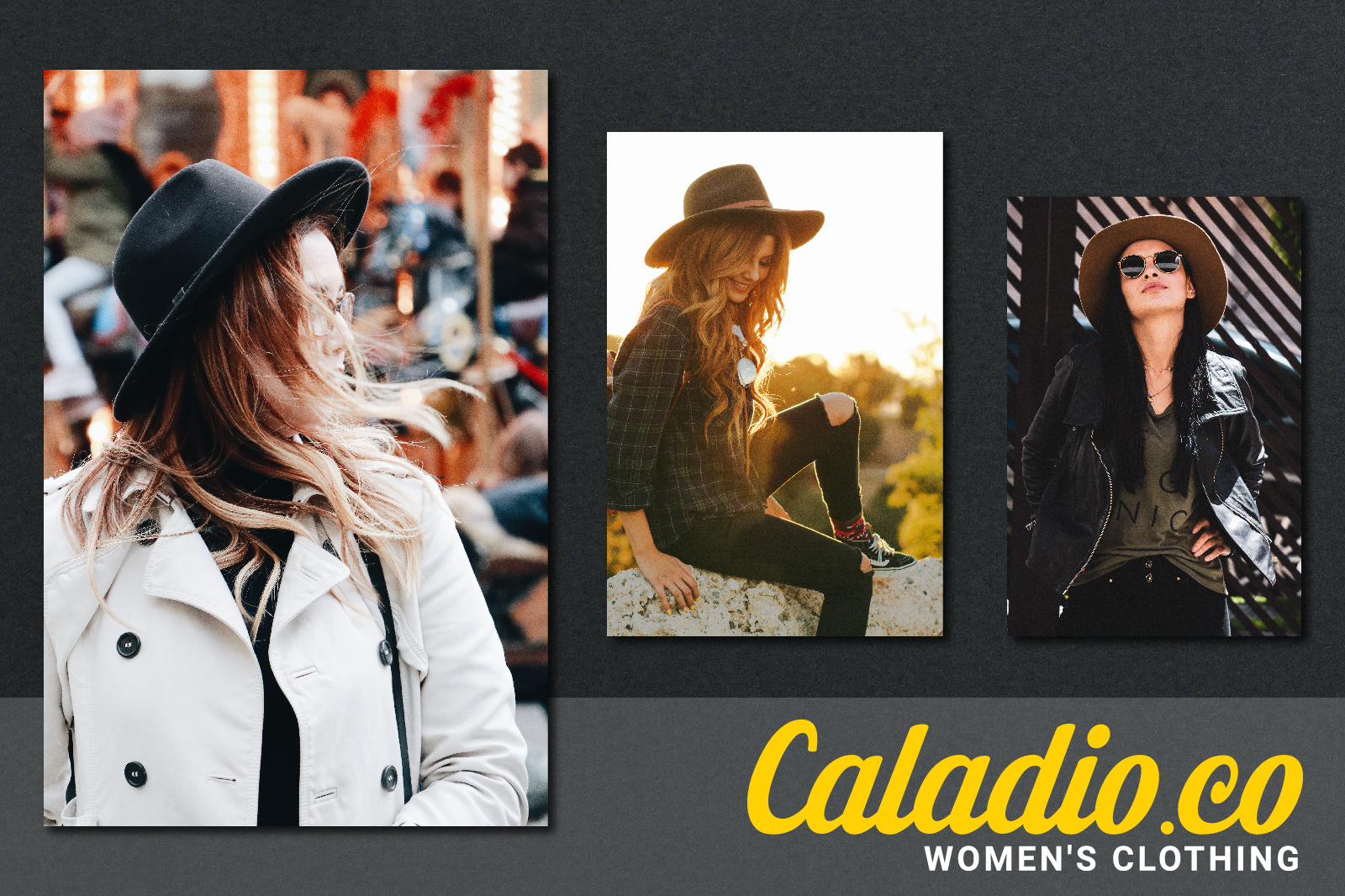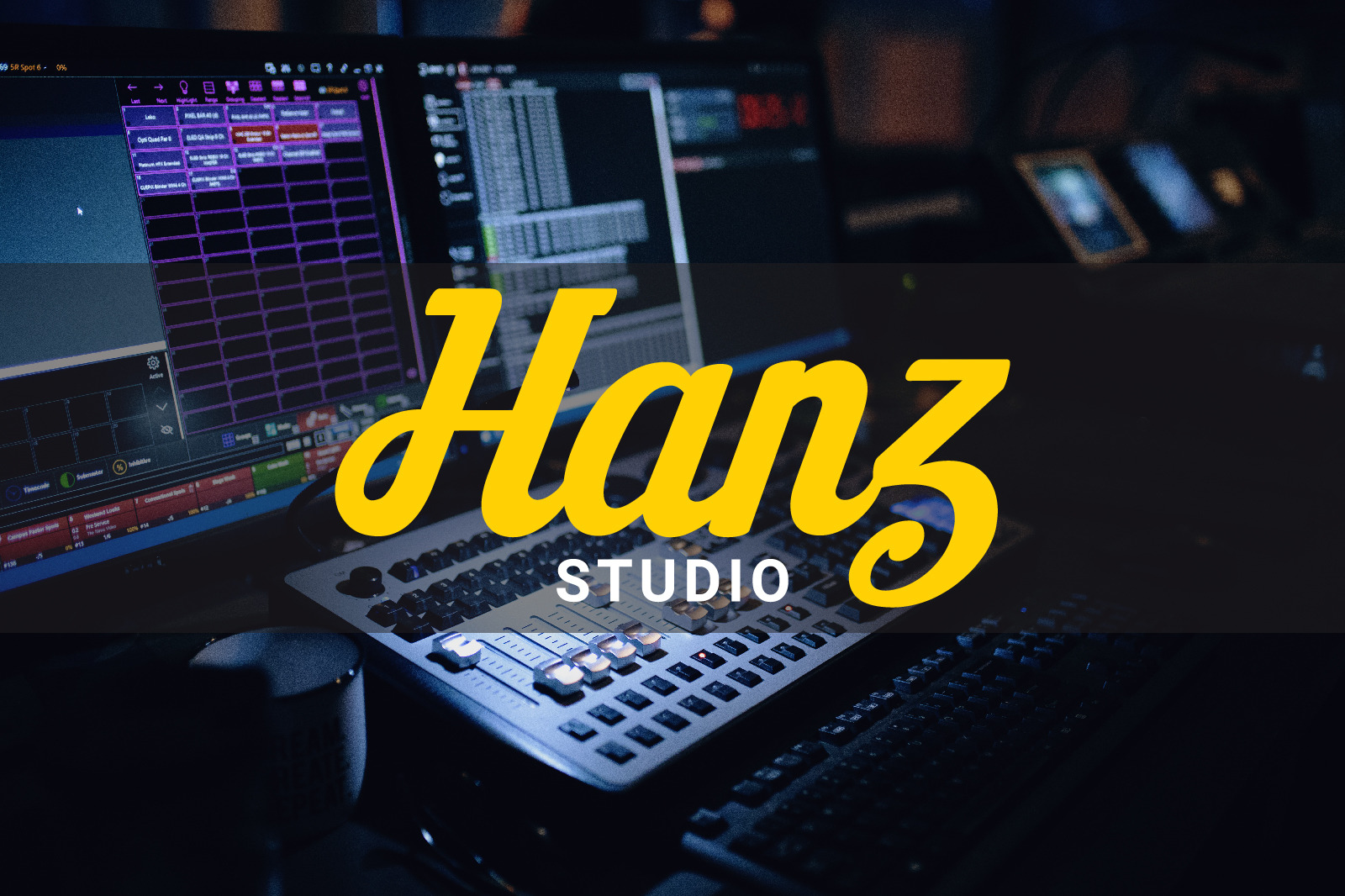
Tahta Modern Script Font
The Tatha font is a very welcoming and stunning modern script font that will elevate any design project to the highest level and will add luxury to any design project you want to create, be it branding, wedding designs, invitations, signatures, logos, labels and more!